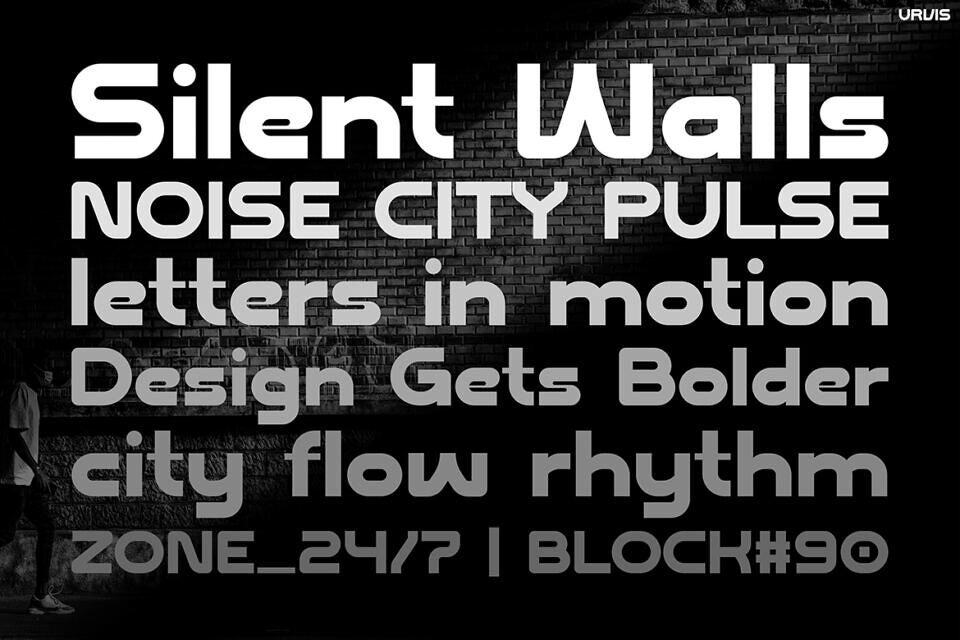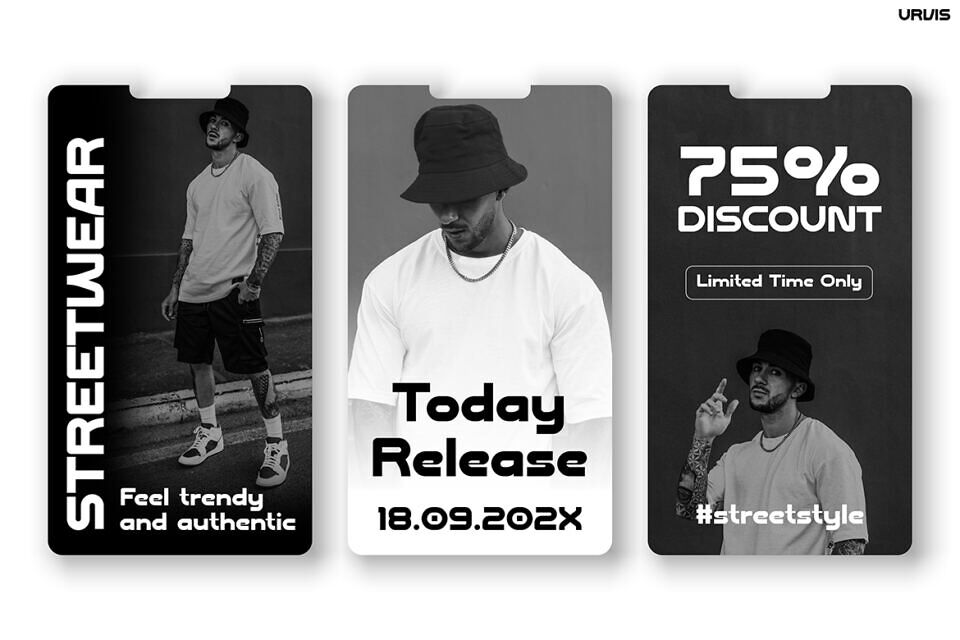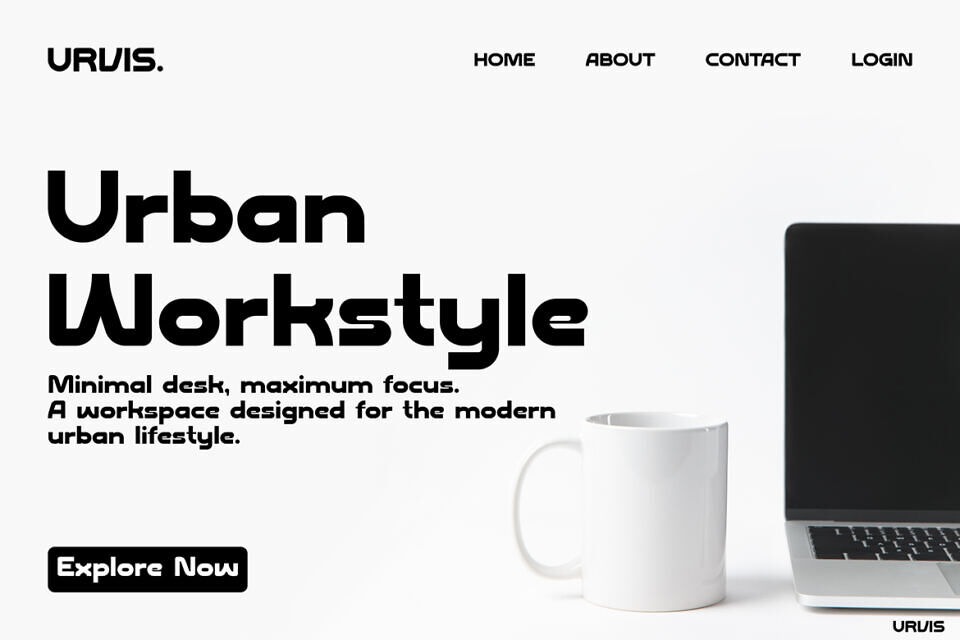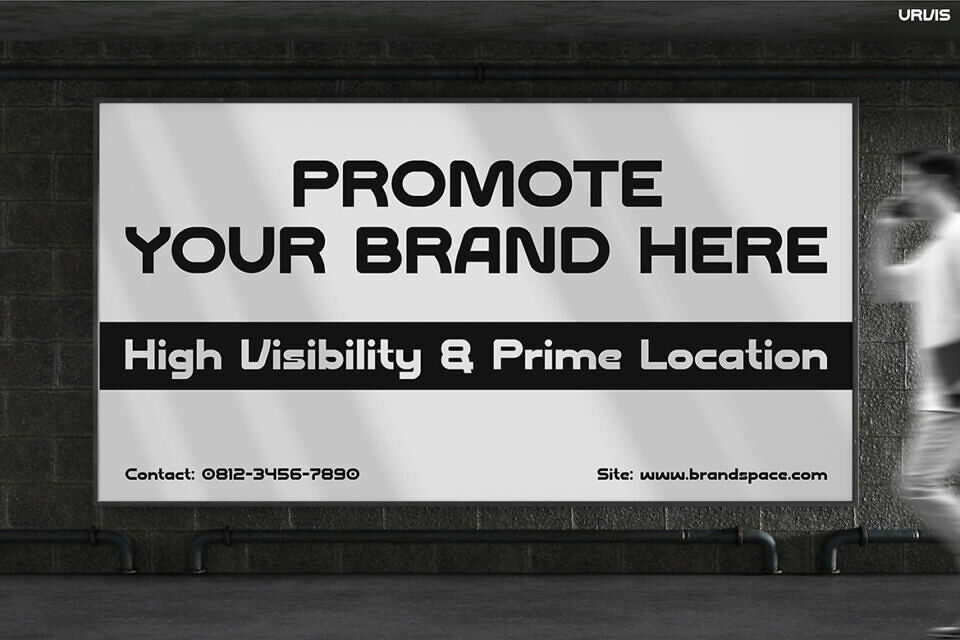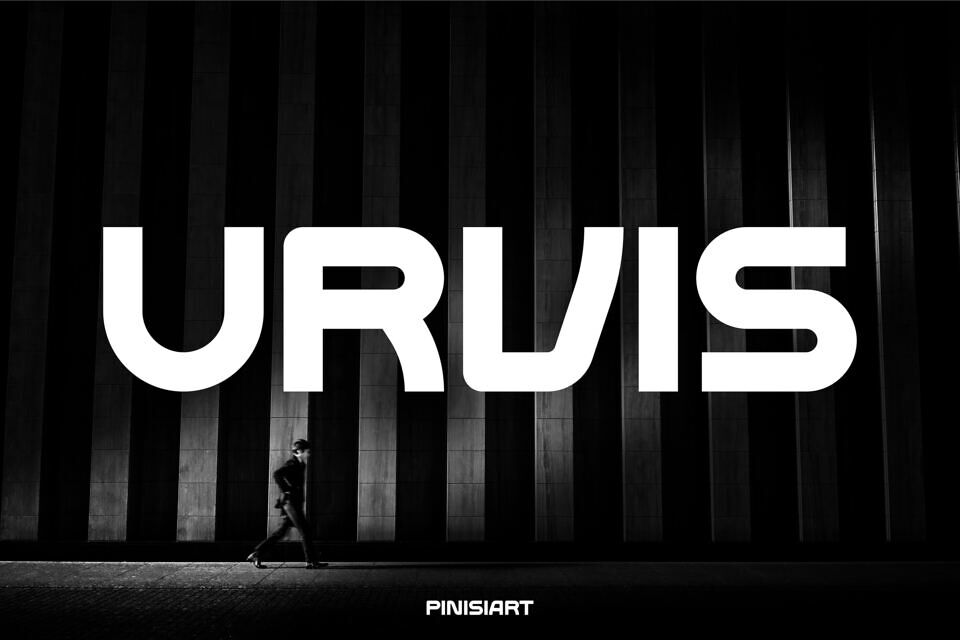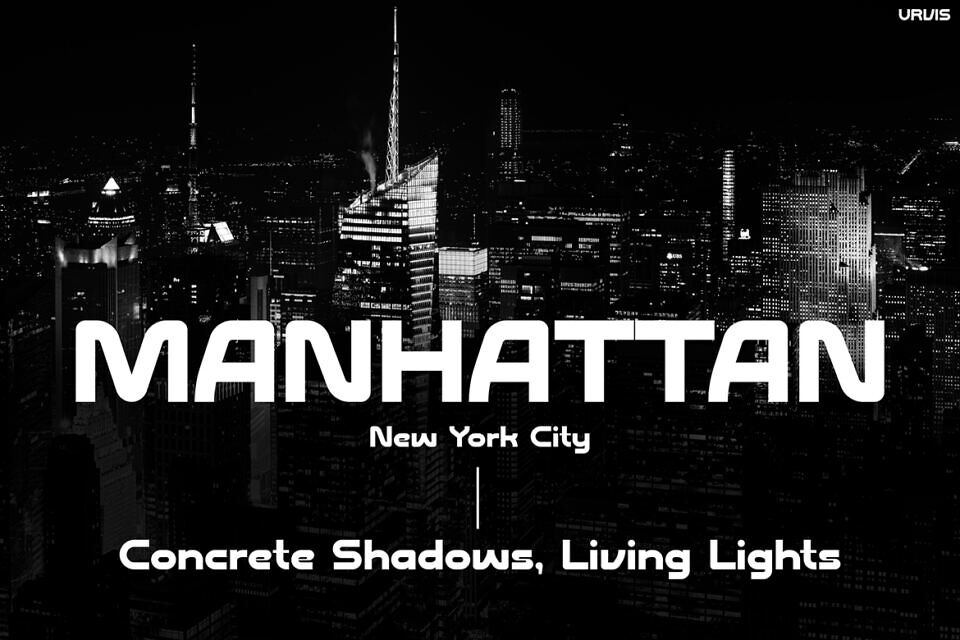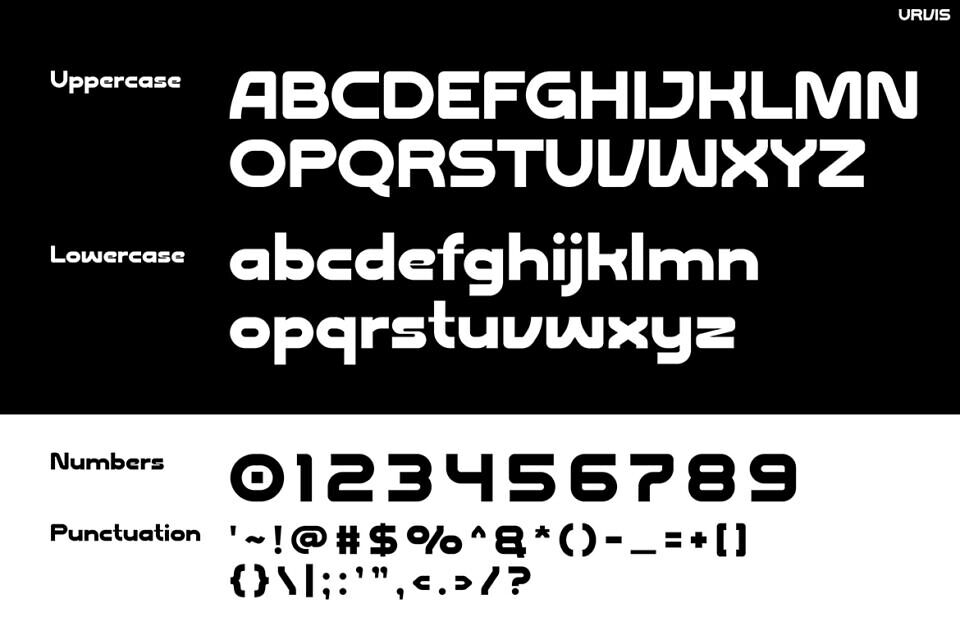
Urvis Font
URVIS is a bold, urban-inspired font blending sharp geometric forms with smooth curves. Its versatile design—clean uppercase, sleek lowercase, and impactful numbers—offers professional clarity and creative flair, equally suited for small or large applications.
Ideal for branding, digital campaigns, and social media, URVIS’s powerful yet minimal aesthetic works across various industries, from fashion and tech to interior design and marketing. Its strong visual impact ensures messages are communicated with clarity and authority.